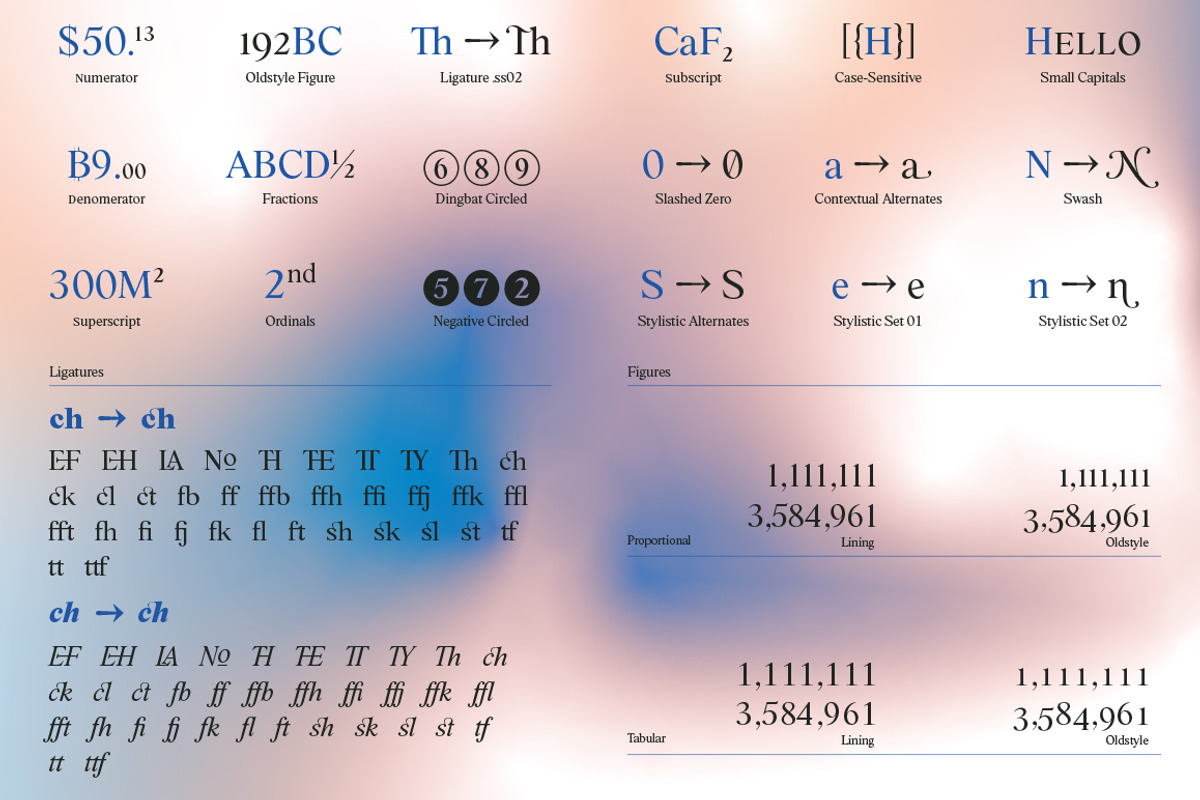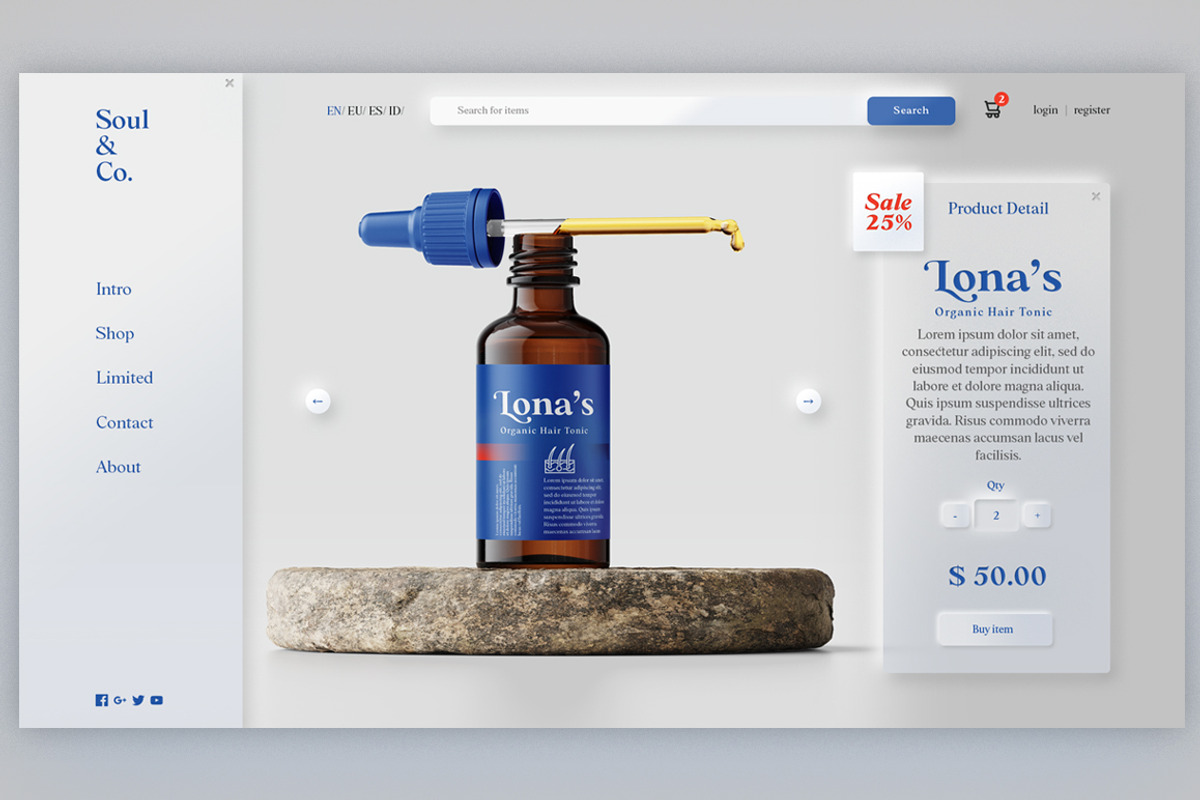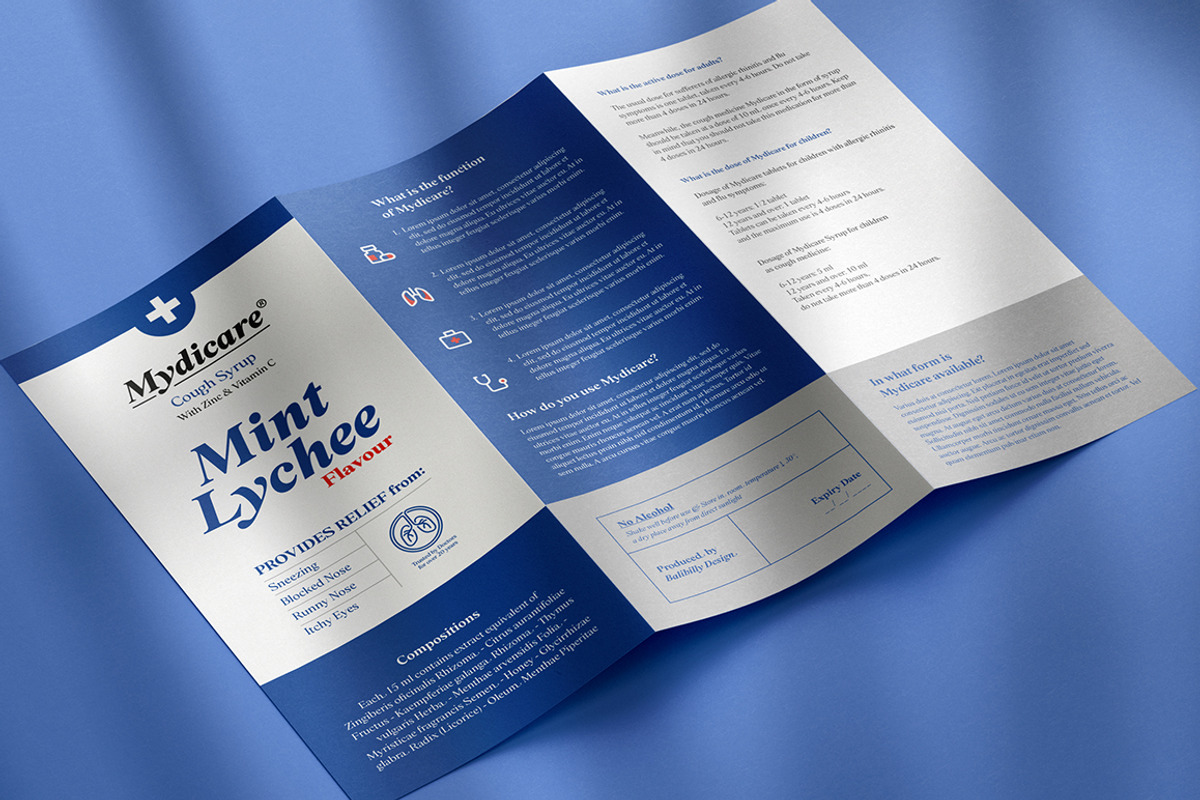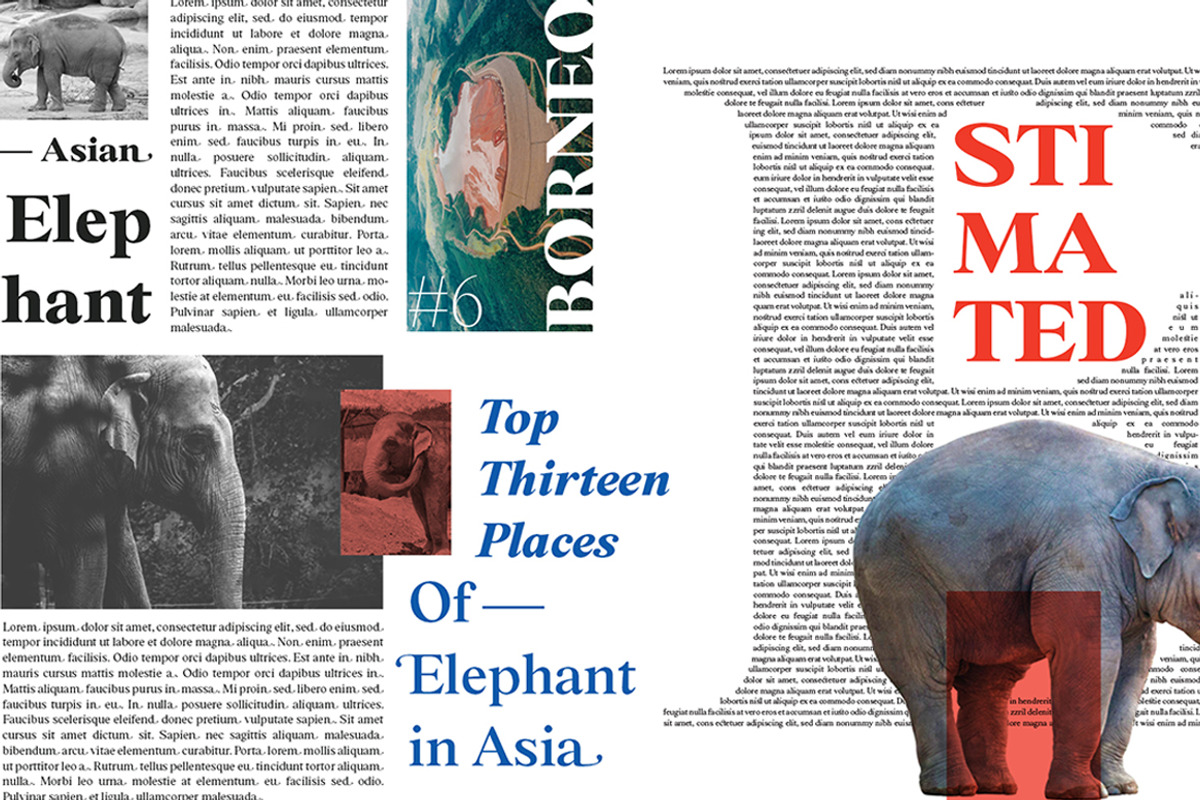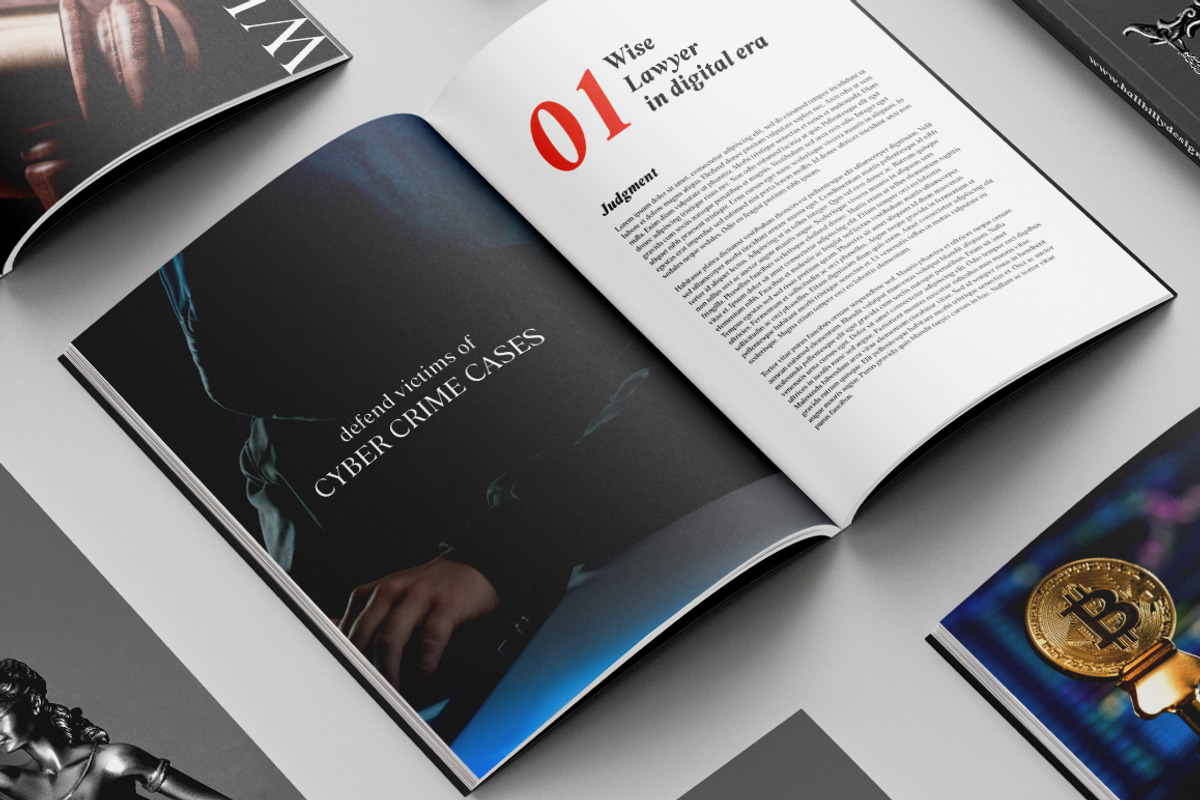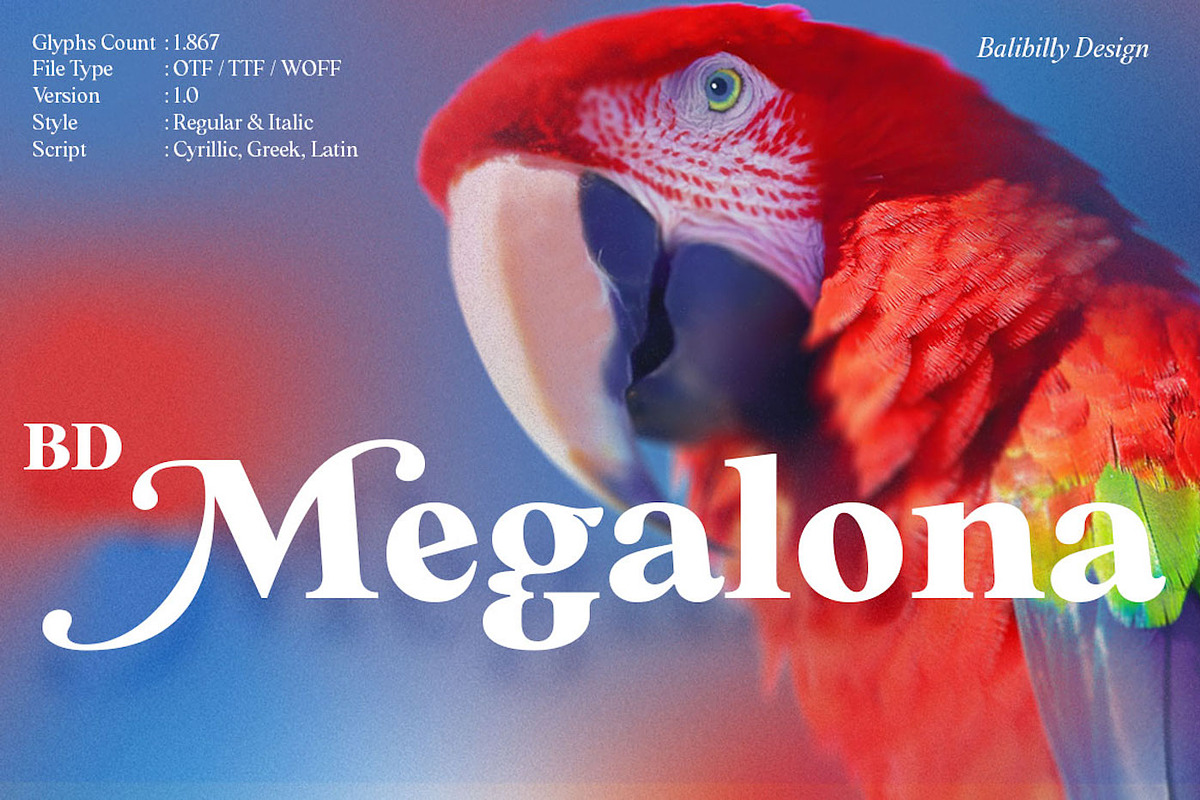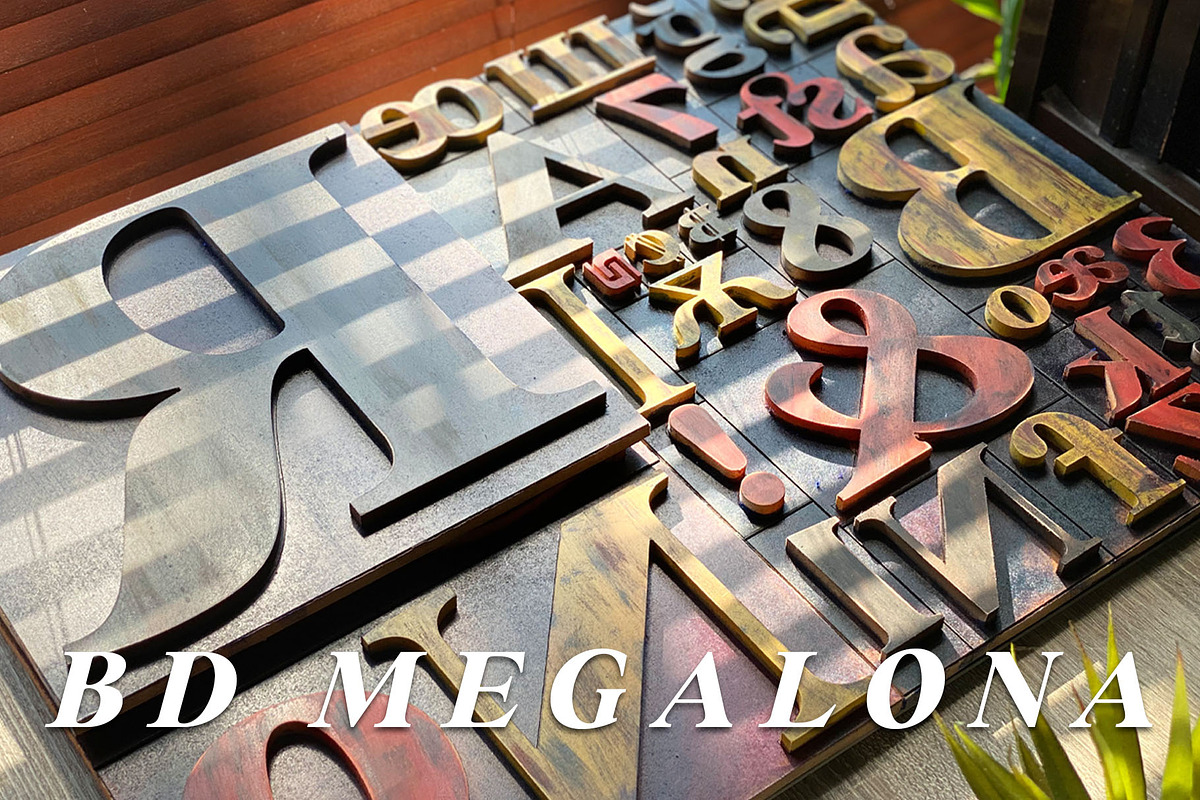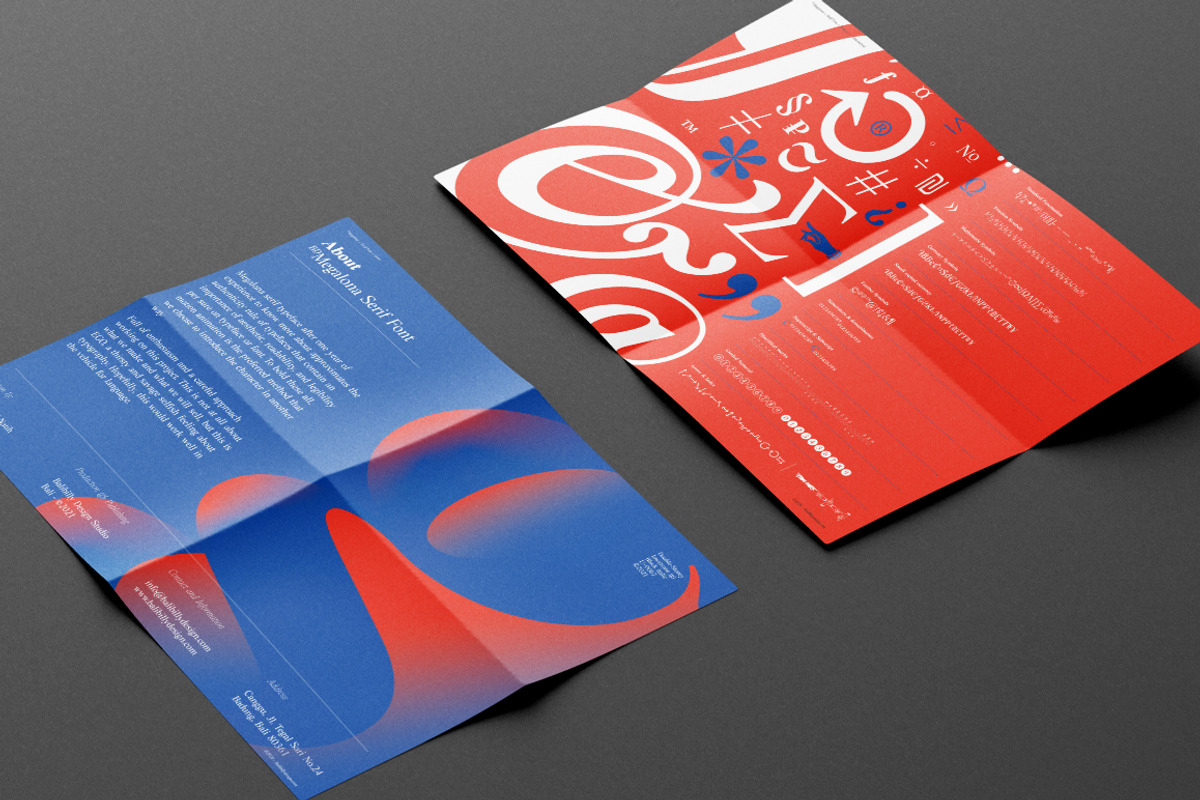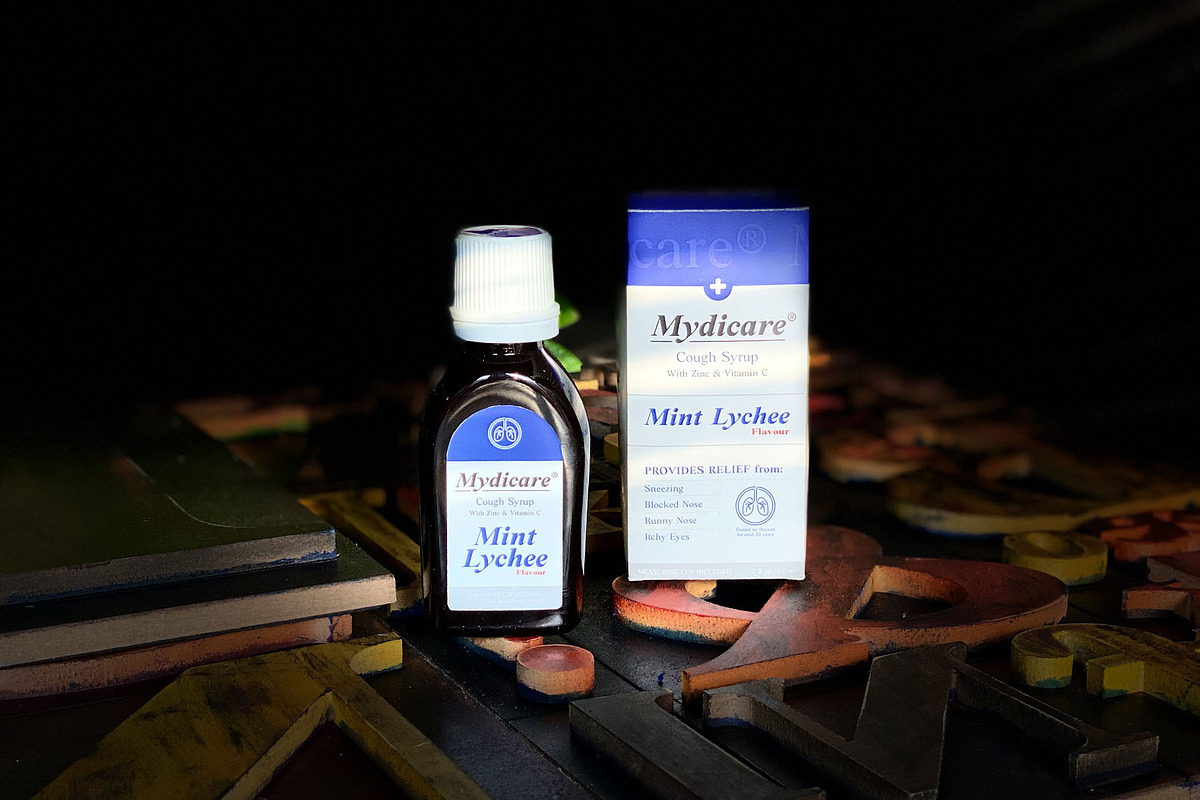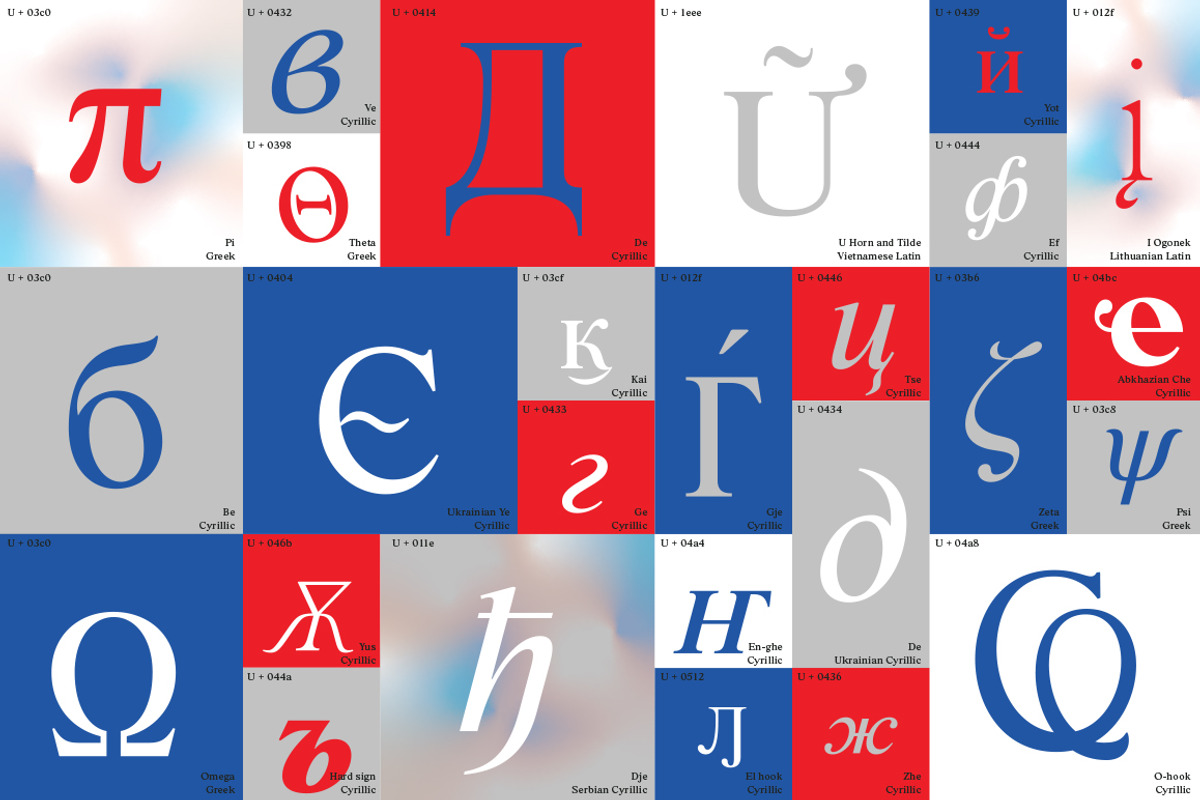
The fundamental in creating this typeface is the implementation of our interest in typography over the past year. Inspired by the elegance, consistency, and hard work of Times New Roman pull up our minds to a daunting blank canvas and began to think about what we had to do to take this idea even further. Whatever comes to our mind and when it is poured out, it will certainly remain within the rules of the letterforms.
This typeface is created by a careful approach, persistence, and full of totality. Taste, shape adjustment, and experimental are 3 words for this typeface. She was born big and charming, feature an extended charset of over 1800 glyphs, covering 219 languages using Latin, Cyrillic (basic to extended), and Greek alphabets. Included advanced open type features like stylistic alternates, terminal form, swash, discretionary ligatures, ordinals, small caps, positional numbers, fractions, and case-sensitive forms.
BD Megalona provides a range of choices that will give luxury vibes in symmetrical layouts with selective deviations, and work well in a stylish look for your typographic project. This is a complete package of problem solvers perfectly suited for body text and high-impact headlines. Advance open-type features definitely stunning on logos, branding, magazines, website, etc.
BD Megalona is our ego in expression that aims to supply the necessity of design nowadays while still in the corridors of glory of past traditions as a source of our inspiration.